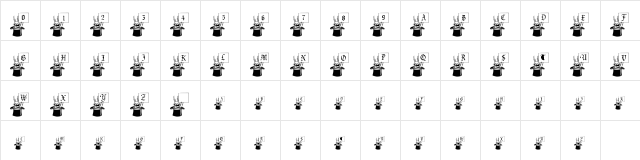
Pf_riah Normal
Design Context for Pf_riah Typeface
Pf_riah is a composed and adaptable typeface that performs quietly and consistently across a wide range of design contexts.